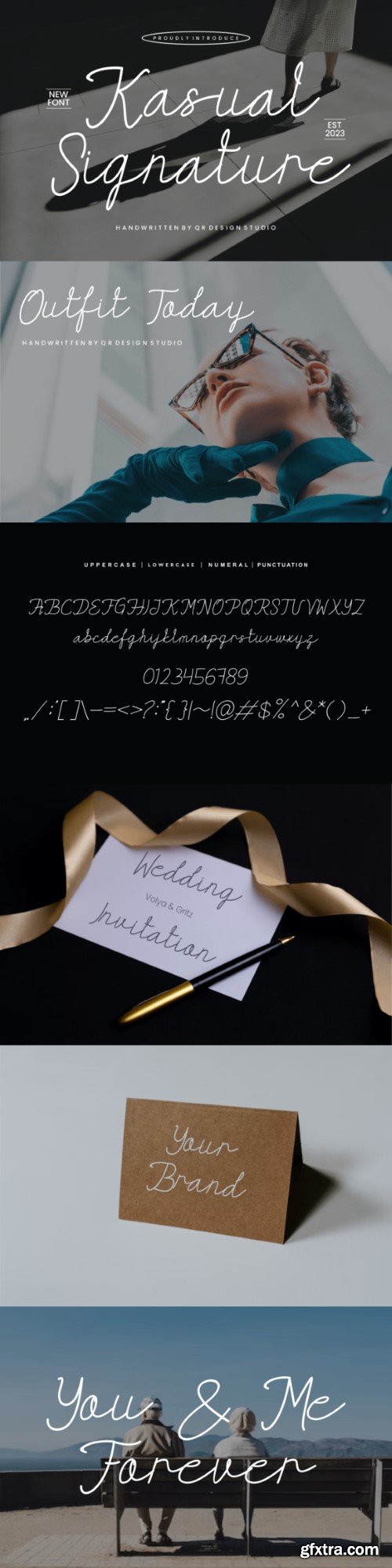
casual signature font
Kasual Signature is a stylish and incredibly elegant script font. It looks stunning on wedding invitations, thank you cards, quotes, greeting cards, logos, business cards, and every other design that needs a handwritten touch.